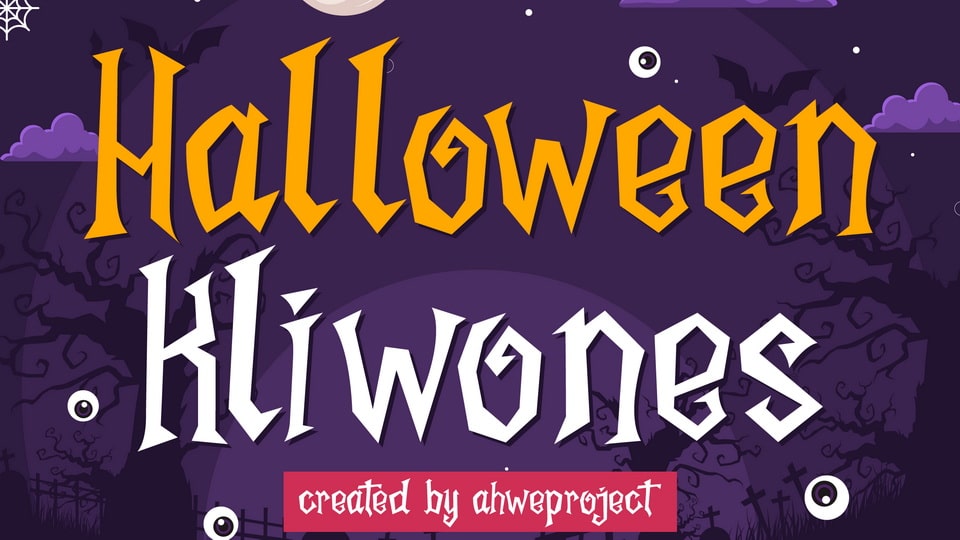
Download Halloween Kliwones font, a spooky display typeface with fun letters. Add it to your Halloween crafts, horror movie posters, t-shirts, and anything else that requires a spectacular look.